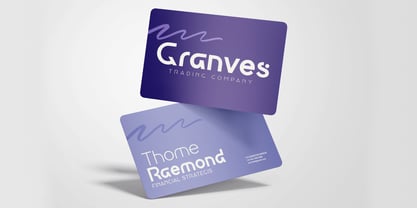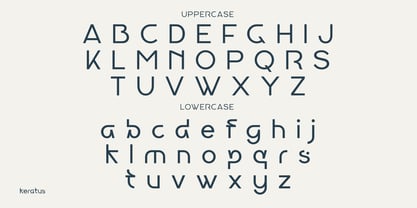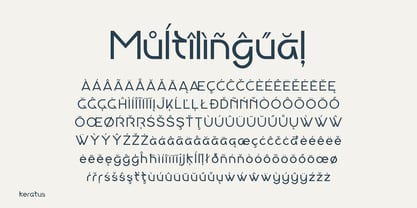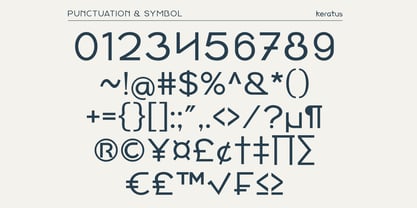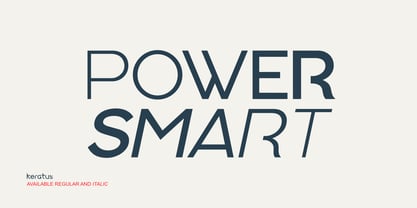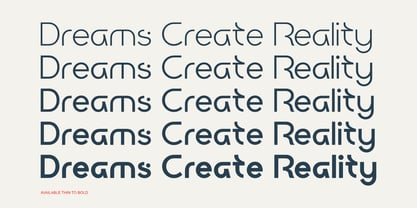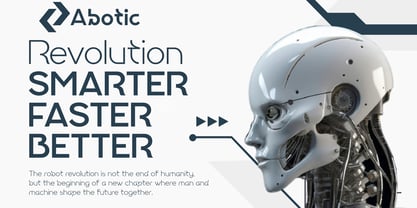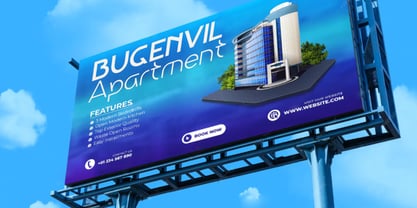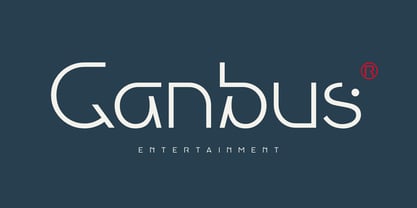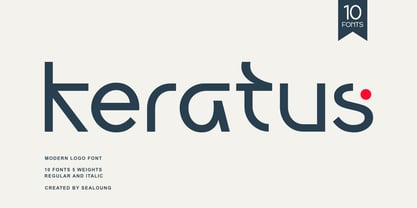
Keratus
The Keratus Font Family was designed by Saiful Anwar and published by Sealoung. Keratus contains 10 styles and family package options.
Keratus – Modern Sans Serif Logo Font
Keratus is a modern sans-serif typeface that blends minimalist elegance with clean geometric shapes. With balanced proportions and refined details, it delivers a professional, innovative, and dynamic look perfect for branding, editorial work, and digital design.
Available in multiple weights with complete OpenType features, Keratus offers high versatility while maintaining excellent readability. It’s an ideal choice for projects that demand a modern, bold, and sophisticated style.
10 Fonts: Keratus-Thin / Keratus-Light / Keratus-Regular / Keratus-Medium / Keratus-Bold + Matching Italics
Features:
• Uppercase & lowercase letters
• Numbers & punctuation
• Multilingual support